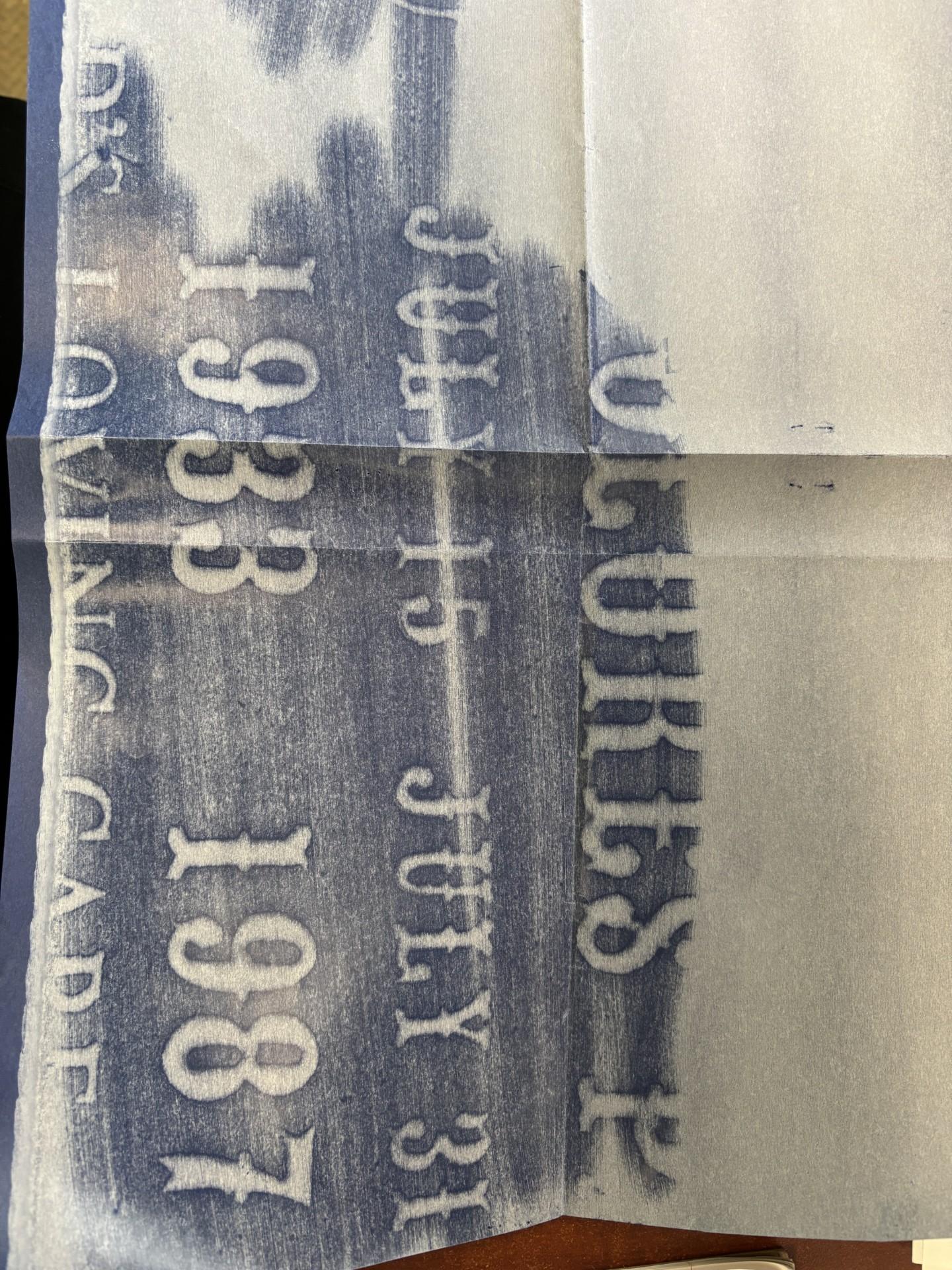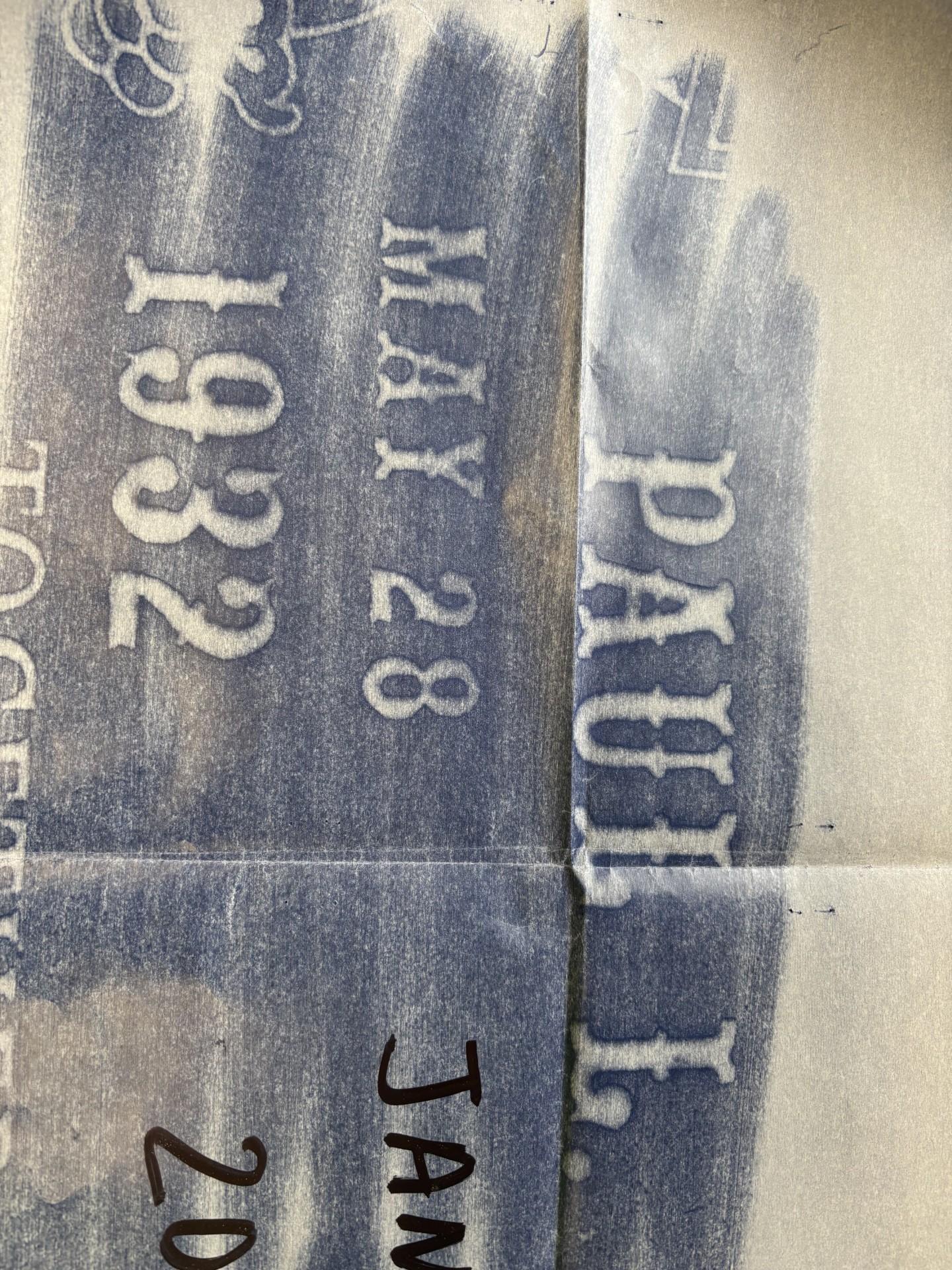
Font ID Home › Forums › Lettering and Font Identification › Font ID This topic has 2 replies, 2 voices, and was last updated 1 year ago by MLC. Viewing 3 posts - 1 through 3 (of 3 total) Author Posts October 1, 2025 at 5:53 am #12128 chughellParticipant What font is this? October 1, 2025 at 5:54 am #12129 chughellParticipant October 1, 2025 at 2:00 pm #12132 MLCKeymaster This is a classic tuscan style font that has many variations, but I believe this to be a specific version named Roulette. Author Posts Viewing 3 posts - 1 through 3 (of 3 total) You must be logged in to reply to this topic. Log In Username: Password: Keep me signed in Log In